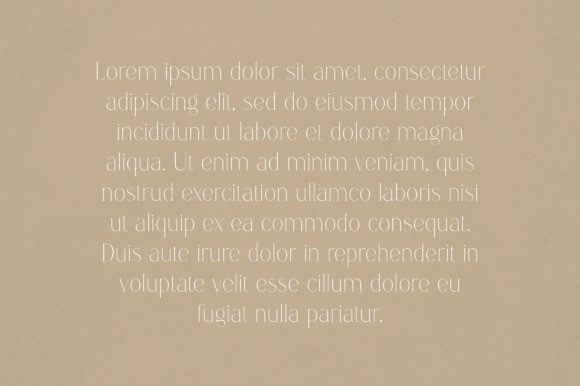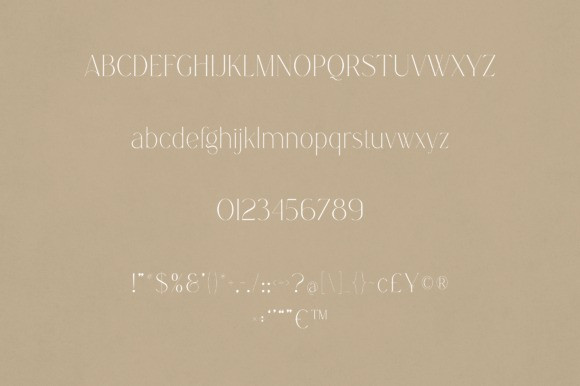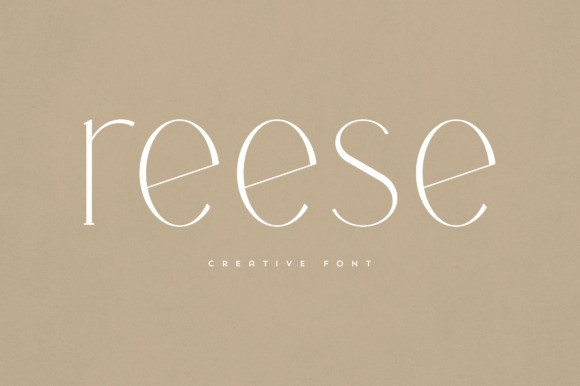
Reese Font
Reese Font is an elegant and versatile serif font that will make your typography truly unique! It will enchant every logo, branding, headline, or plain text!